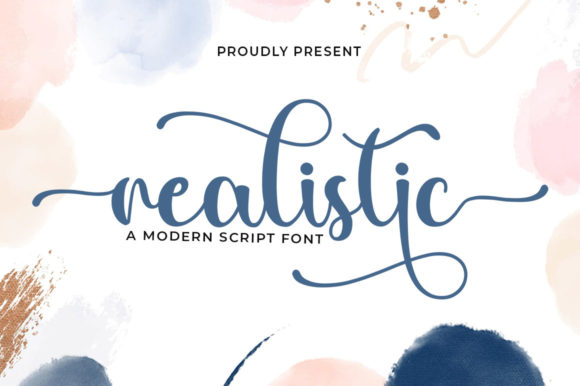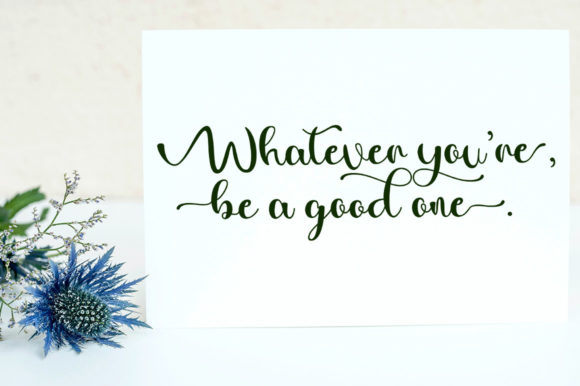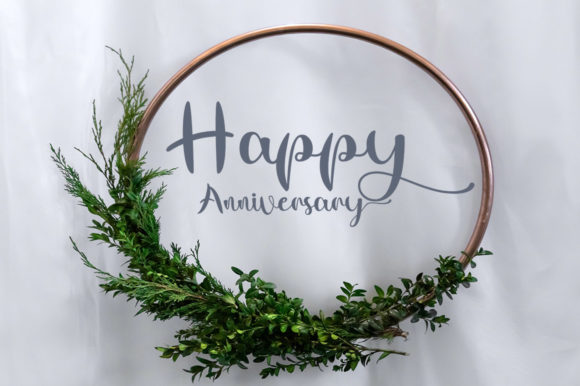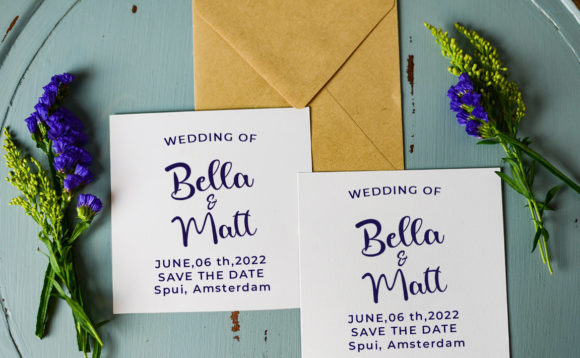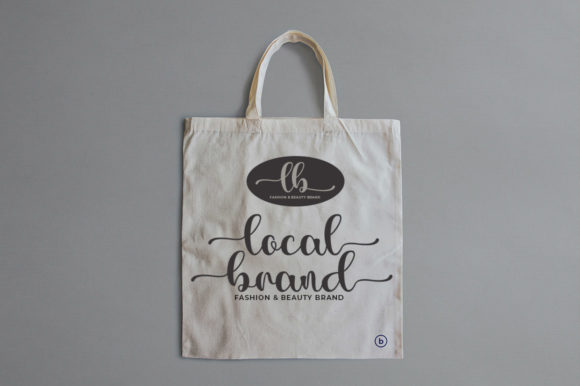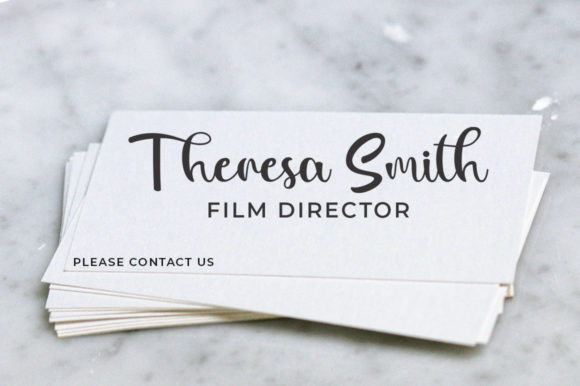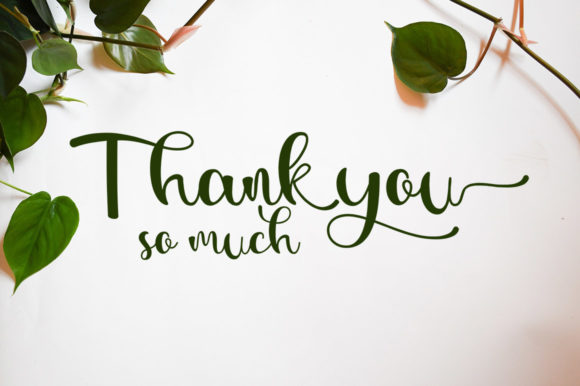
Realistic Font
About Realistic Font
Realistic is a romantic and sweet script font. It will add a luxury spark to any design project that you wish to create!